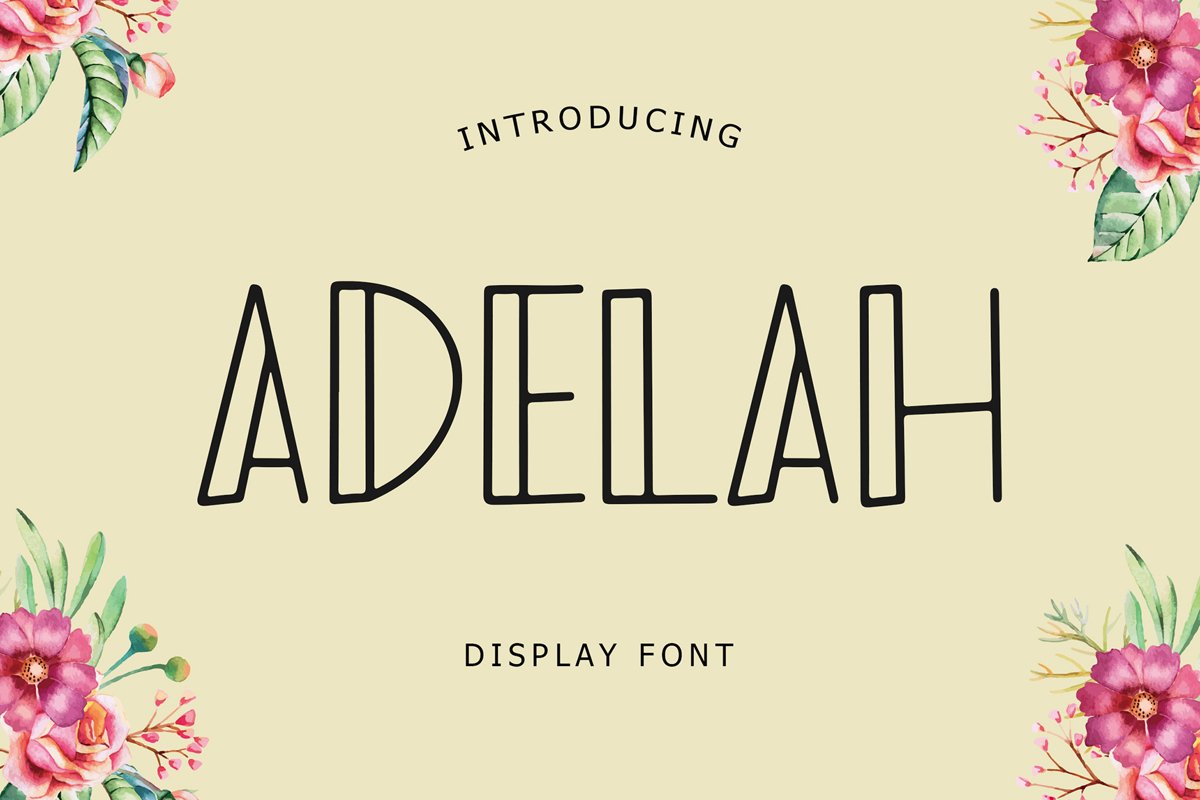
Adelah Display Font
Adelah
Adelah Display Font is a playful handwritten font, fit for Kids Font, can make your text appear excited and modern!
Adelah Display Font is perfect for cute and playful branding projects, logo, petshop and animal-related projects, social media posts, advertisements, product packaging, T-shirt design, product designs, label, photography, watermark, invitation, stationery, and any projects.